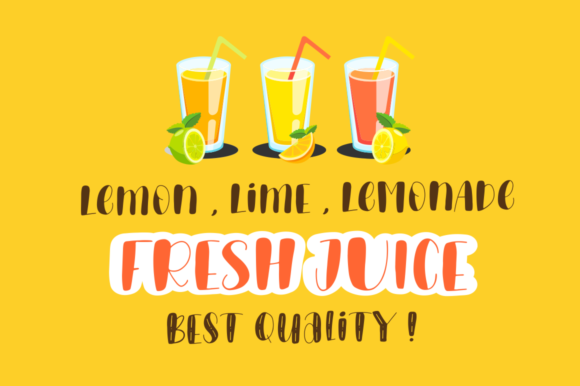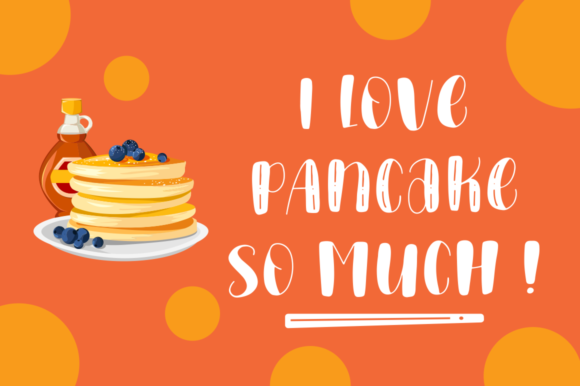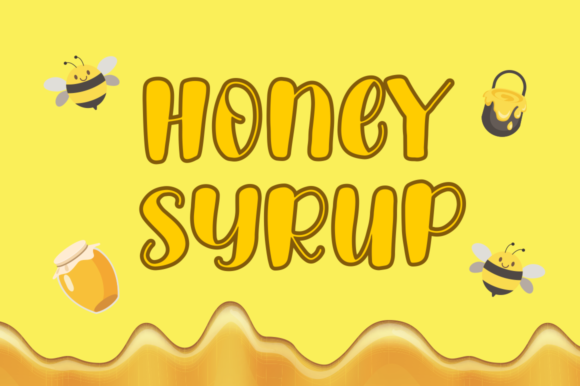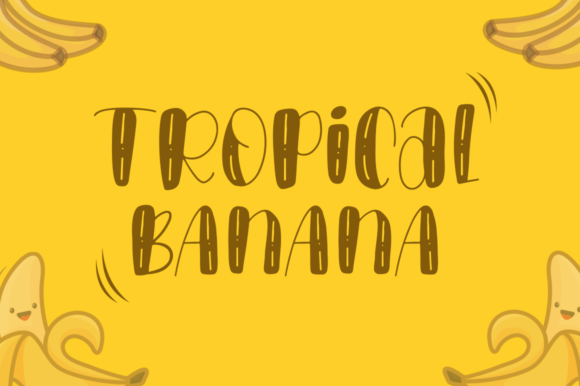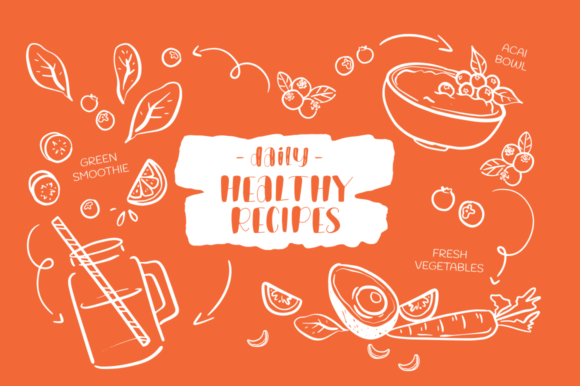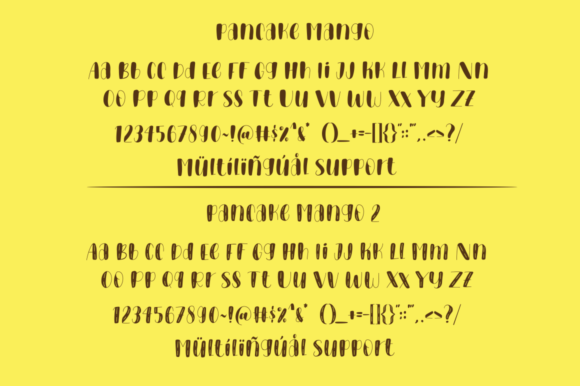
Pancake Mango Font
About Pancake Mango Font
Pancake Mango feels equally charming and elegant. This stunning script font is a stylish homage to classic calligraphy. It will elevate a wide range of design projects to the highest level, be it branding, headings, wedding designs, invitations, signatures, logos, labels, and much more!